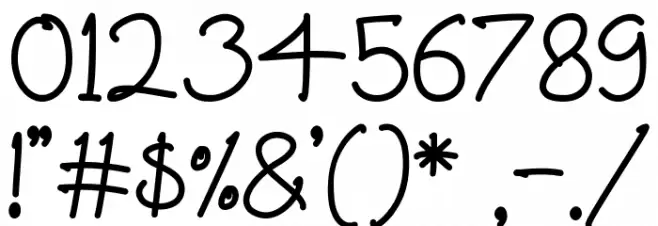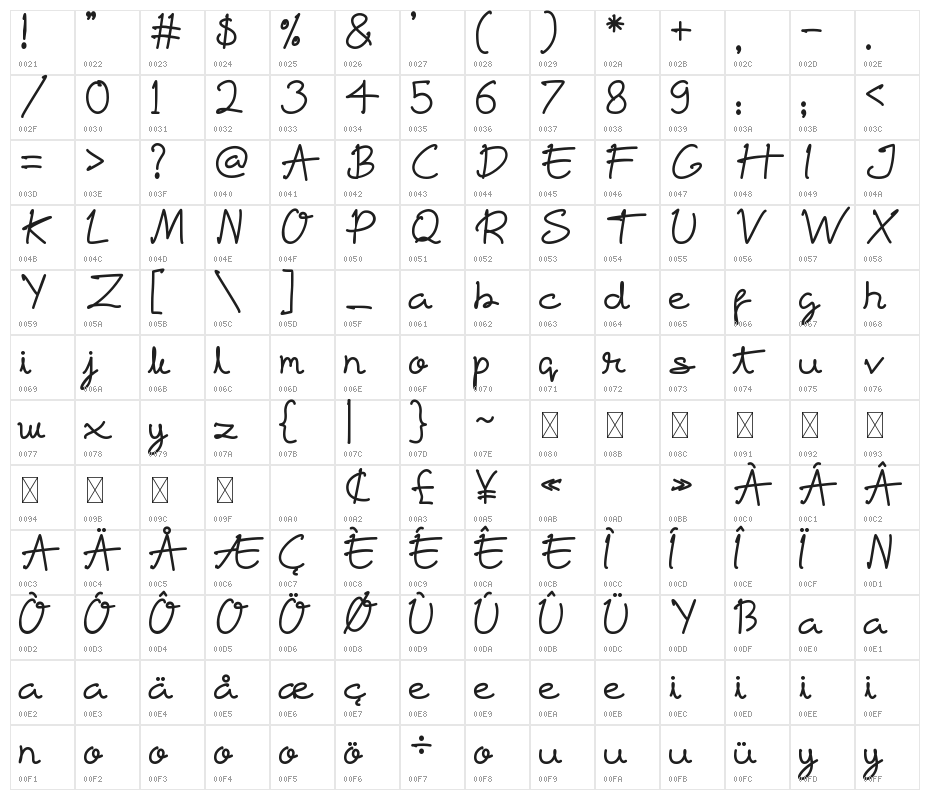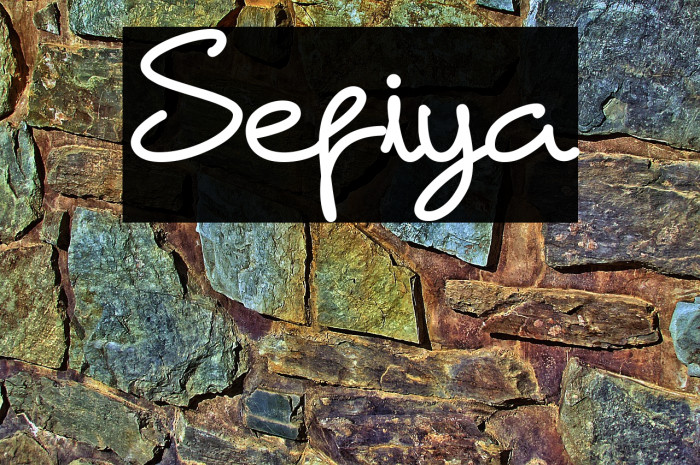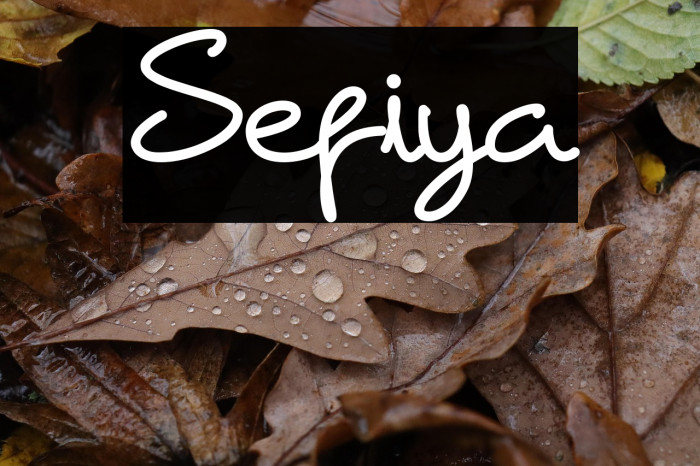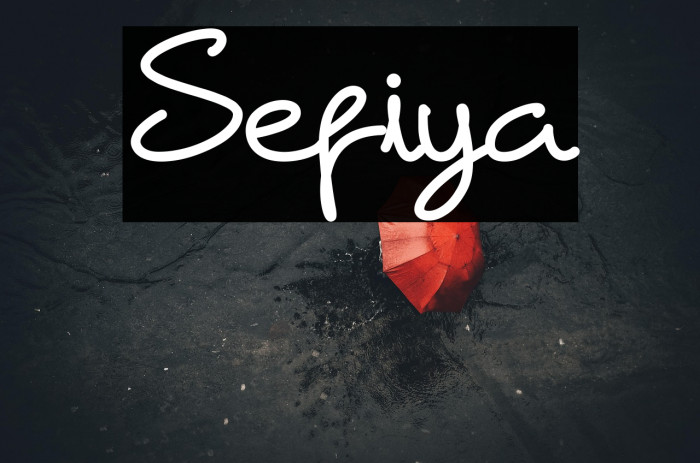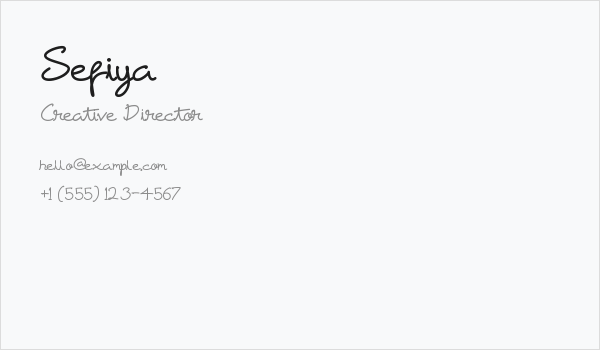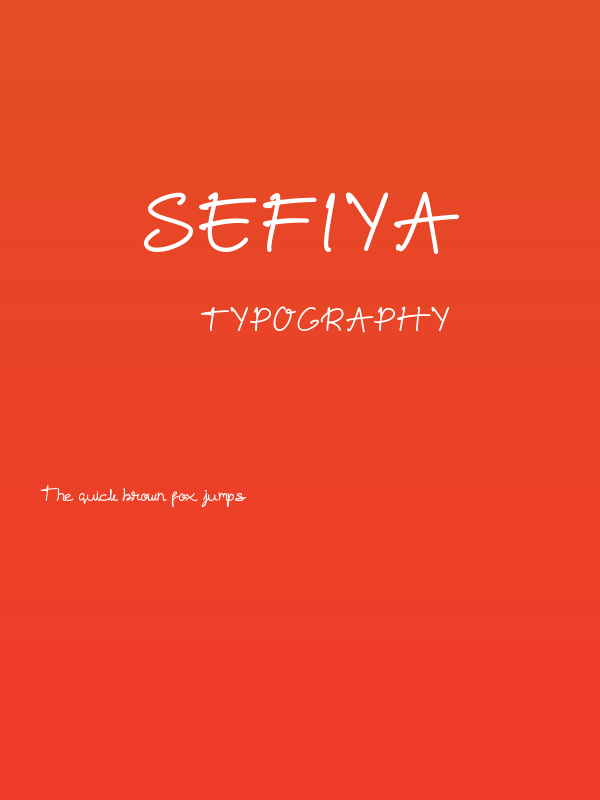
Sefiya Font
Sefiya Description
This font features a playful and casual handwritten style, characterized by smooth, flowing lines and a slightly irregular baseline that gives it a natural, organic feel. The uppercase letters are distinct and easy to read, with a slight slant that adds to the informal appearance. The lowercase letters are more connected, resembling cursive handwriting, which enhances the font's friendly and approachable vibe. The numerals are rounded and consistent with the overall style, maintaining clarity and readability. Special characters are well-integrated, matching the font's lively and informal aesthetic.
A playful, casual handwritten font with smooth, flowing lines and a natural feel from Regular fonts.
- Proposed Projects: Ideal for greeting cards, invitations, personal branding, and social media graphics.
- Overall Style: Casual, Playful
- Use Case: Logos, Invitations, Social Media Graphics